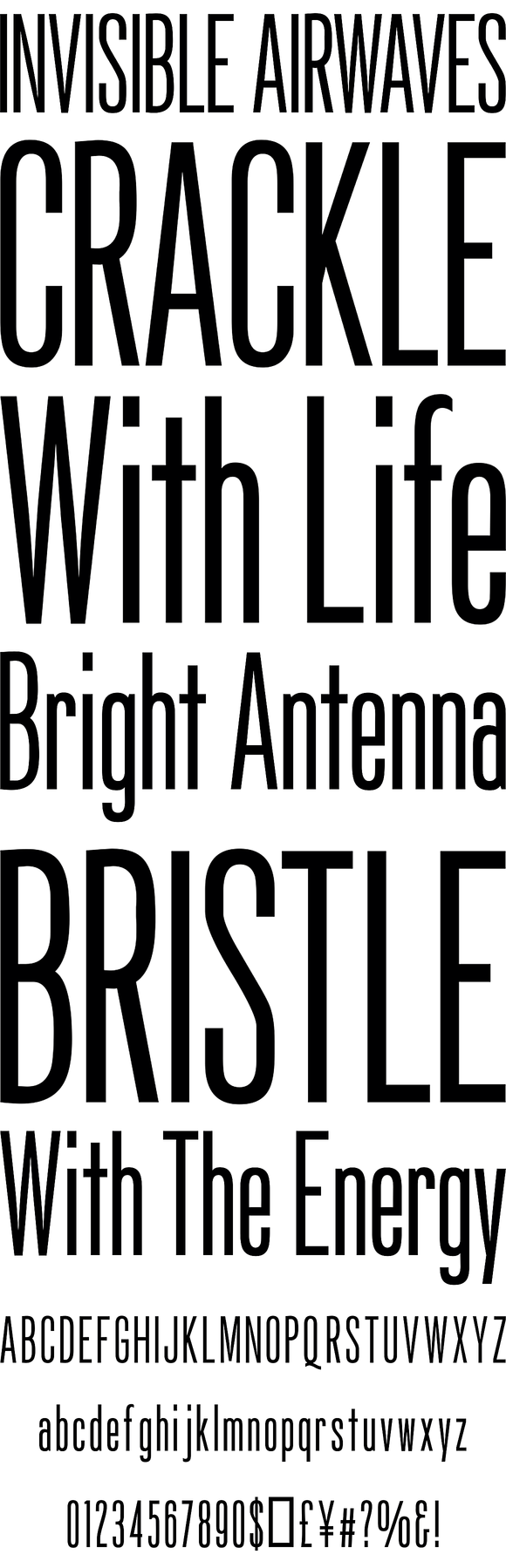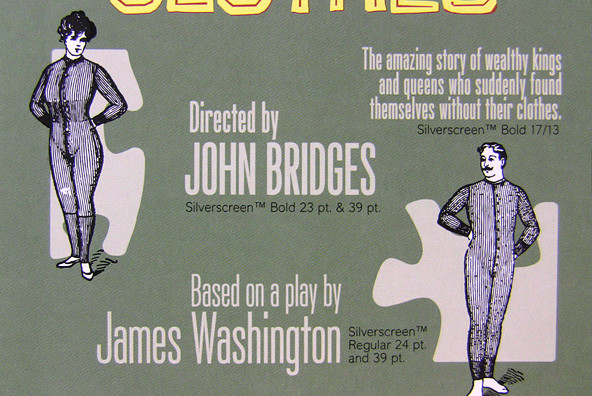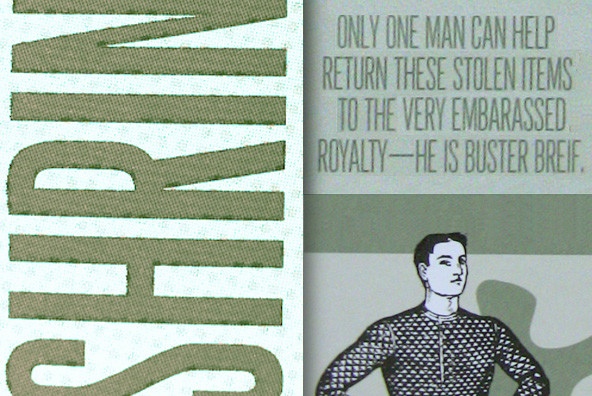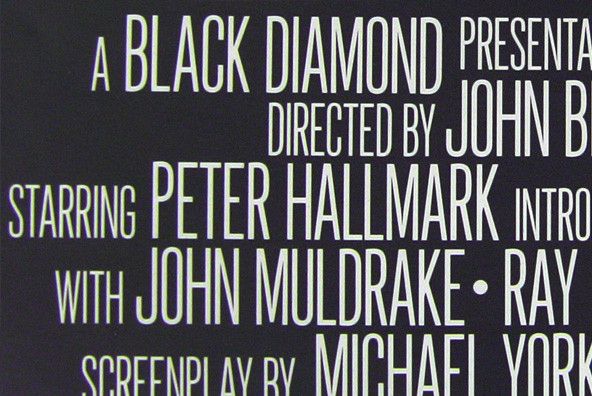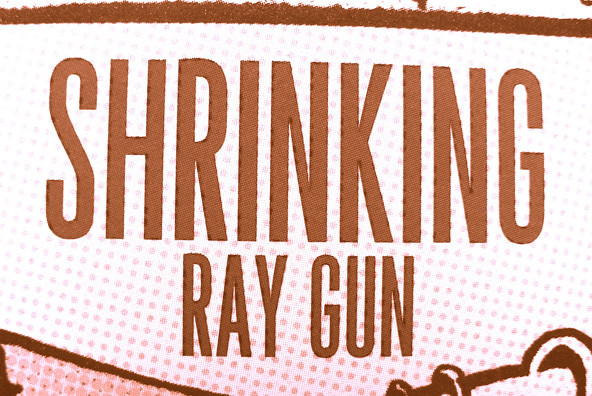
Silverscreen™ is based on the narrow lettering which has been used on movie posters for many decades.
Each font in the Silverscreen™ family has a full character set of 232+ letterforms, with all characters designed in the style of the font.